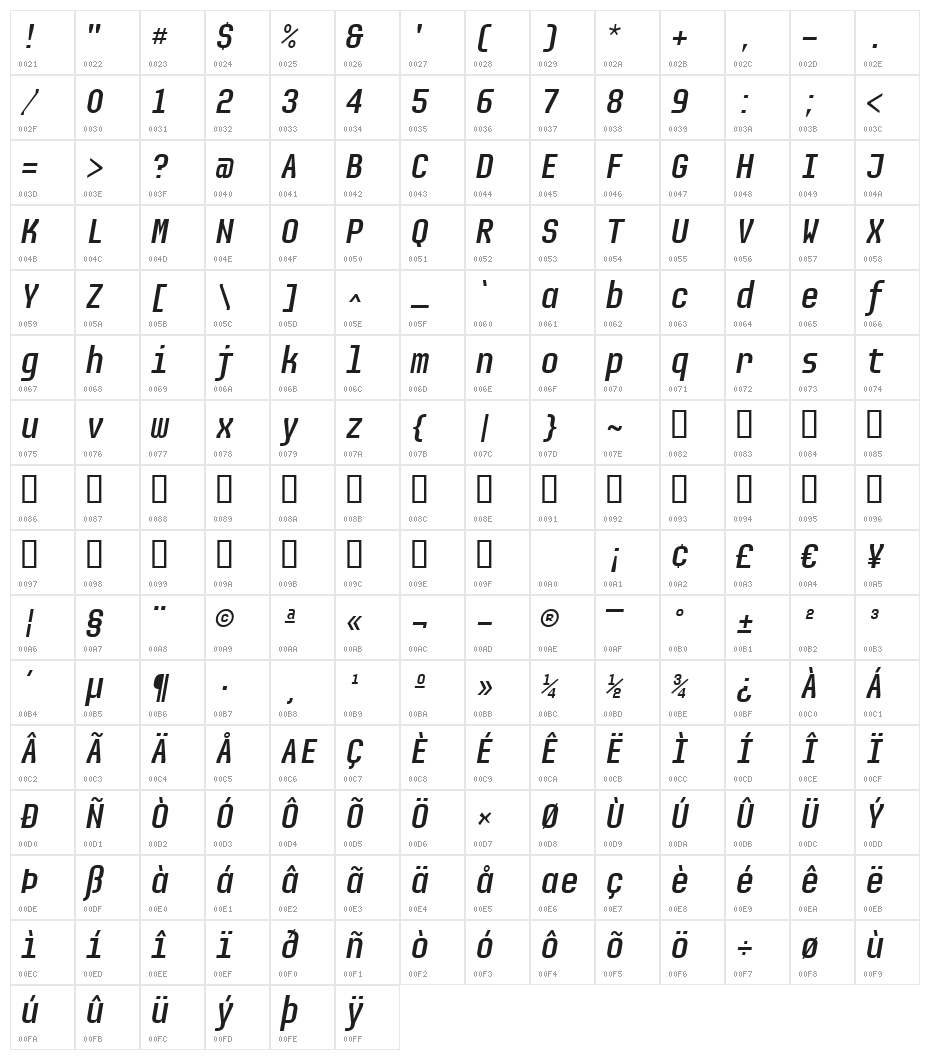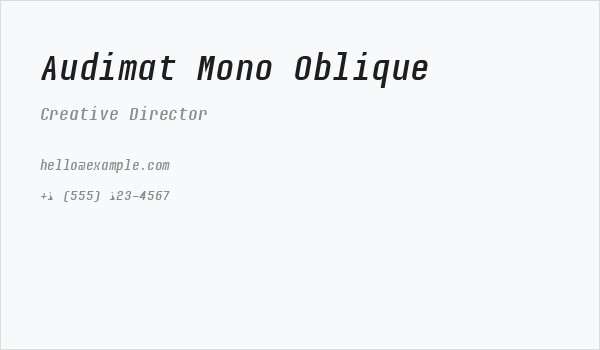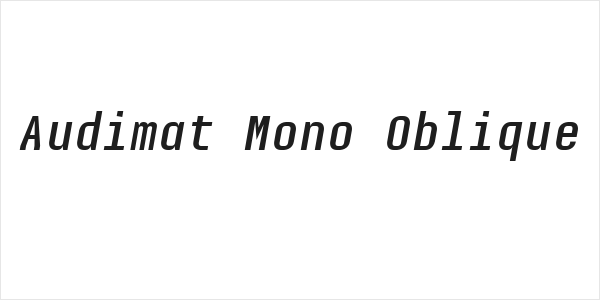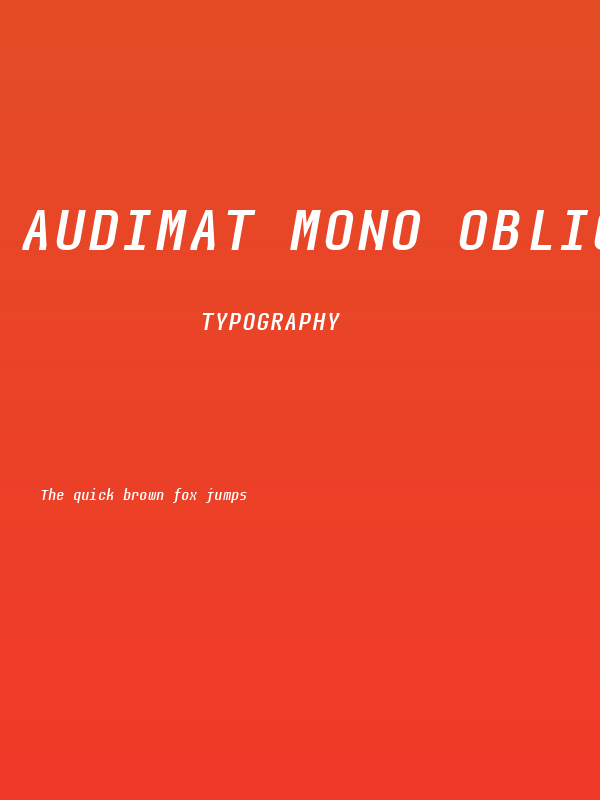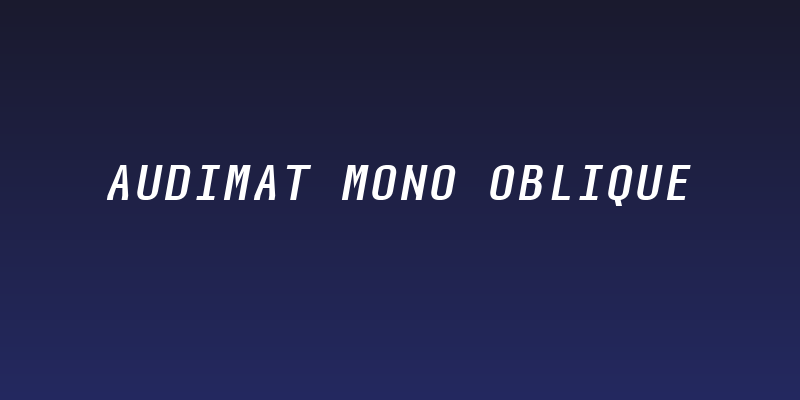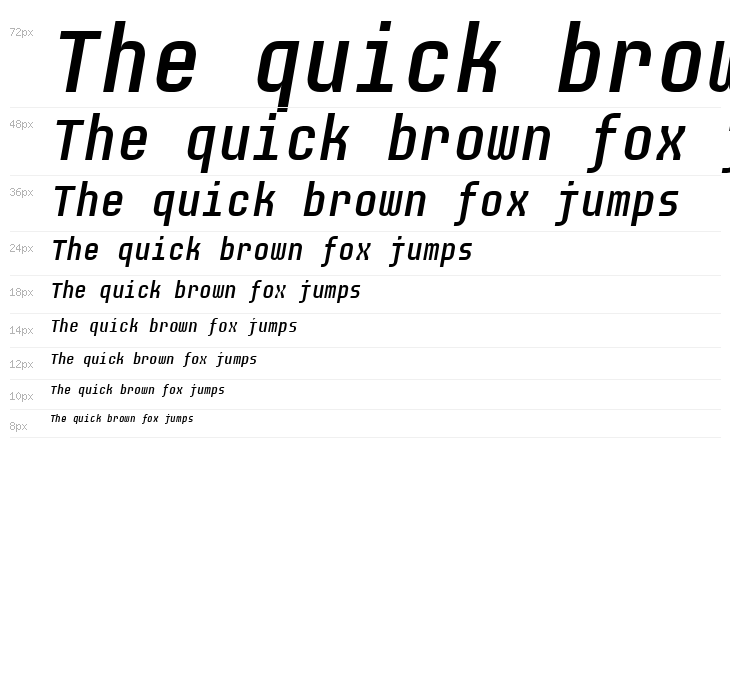
Audimat Mono Oblique Font
Audimat Mono Oblique Description
This font exhibits a modern and sleek monospaced design with an oblique slant, giving it a dynamic and forward-leaning appearance. The characters are uniformly spaced, maintaining a consistent rhythm across the text. Each letter and number is crafted with precision, featuring clean lines and a slightly condensed form. The uppercase and lowercase letters maintain a harmonious balance, while the numerals are clear and easily distinguishable. Special characters are included, enhancing its versatility for various applications. The overall style is contemporary, making it suitable for digital interfaces and coding environments.
| Use Case | Coding, Digital interfaces, Technical documentation |
| Proposed Projects | Ideal for coding environments, digital interfaces, technical documentation, and modern branding projects. |